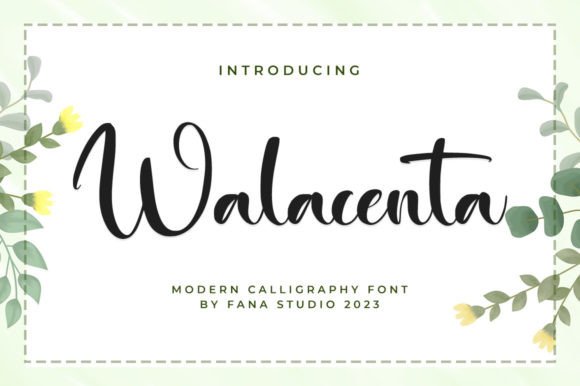
Walacenta: The Stylish Script Font for Modern Makers
There is a specific kind of magic that happens when you finally find the right Fonts to bring your handmade vision to life. I remember sitting at my design desk last Tuesday, staring at a mockup for a new line of soy candle labels. The layout was clean, the color palette was soft sage and cream, but something felt missing until I opened up Walacenta. This isn't just another digital file; it is a tool that instantly transforms flat designs into something that feels personal, elegant, and ready for the shelf. As a creator who spends hours tweaking kerning and testing cut files, finding a Script Handwritten typeface that balances modern flair with genuine readability is rare, but Introducing Walacenta Script, a stylish Font Style delivers exactly that professional touch needed for today's competitive market.
Elevating Product Packaging with Walacenta's Elegant Flow
When you are running a small shop, whether on Etsy or at a local craft fair, your packaging is your silent salesperson. I tested Walacenta immediately on a batch of boutique gift tags and product stickers, and the difference was palpable. Because this beautiful script font offers your personal touch to your latest art project with an elegant, classy, and modern look, it works exceptionally well for branding elements that need to stand out without shouting. The strokes have a natural variation that mimics real ink on paper, giving your physical products a high-end, custom feel that generic system fonts simply cannot achieve. For makers creating soap labels, jewelry cards, or bakery boxes, Walacenta adds that layer of sophistication that tells customers, "This was made with care."
The versatility of this Script Handwritten style shines when you consider how it interacts with different materials. I printed a test sheet on matte vinyl and another on textured kraft paper. On the smooth vinyl, the lines remained crisp and defined, perfect for waterproof stickers that go on water bottles or outdoor signs. On the kraft paper, the font's organic curves complemented the rough texture, creating a rustic-chic aesthetic popular in farmhouse decor. When selecting Fonts for physical merchandise, you need a typeface that doesn't lose its character when scaled down or printed on non-white backgrounds, and Walacenta maintains its integrity beautifully across these varied applications.
Creating Stunning Wedding Invitations and Stationery Sets
If you design wedding stationery or sell printable invitations, you know that couples are looking for a romantic yet contemporary vibe. Walacenta fits perfectly into this niche because it avoids the overly swirly, hard-to-read traps of traditional calligraphy while retaining enough flourish to feel celebratory. I used it to create a mockup for a wedding welcome board, pairing the large display text with a simple, clean sans serif font for the details. This combination is a classic design rule for a reason: the contrast allows Walacenta to be the star while ensuring guests can actually read the time and location. The font's modern look makes it suitable not just for weddings, but also for bridal shower invites, baby announcement cards, and even sophisticated birthday party banners.
One of the most critical aspects of using a decorative font for stationery is legibility at various sizes. During my review, I tested Walacenta at 12 points for body text and found that while it is gorgeous, it truly shines as a display font for names, titles, and short phrases. For longer paragraphs of text, such as the story of the couple or detailed directions, it is best to pair it with a neutral serif or sans serif partner. This approach ensures your designs remain accessible and easy to digest. By using Walacenta for the headlines and a supportive font for the details, you create a visual hierarchy that guides the eye naturally, making your stationery sets look professionally typeset rather than amateurishly decorated.
Optimizing Walacenta for Digital Downloads and Printables
The world of digital products is vast, ranging from planner pages to wall art, and choosing the right typography can make or break a listing image. Introducing Walacenta Script, a stylish Font Style is particularly effective for cover pages of digital planners or inspirational quote prints. The "personal touch" mentioned in its description translates wonderfully to the screen, where users are often looking for warmth and humanity in their digital organization tools. I created a set of monthly calendar headers using Walacenta, and the result was a cohesive, inviting aesthetic that encourages users to engage with their planning process. For sellers of SVG files or sublimation designs, this font provides excellent source material for t-shirts, tote bags, and mugs where a handwritten feel is desired.
However, practical application requires attention to technical details. If you are creating cut files for Cricut or Silhouette machines, Walacenta generally handles well, but always check the connecting points between letters to ensure they are welded correctly before cutting intricate materials like cardstock or heat transfer vinyl. For very small applications, such as tiny favor tags or miniature stickers, you may need to adjust the tracking slightly to prevent the letters from merging into an illegible blob. Remember, while Fonts like this add immense value, they work best when used intentionally. Avoid using them for dense blocks of text or technical instructions where clarity is paramount. Instead, reserve Walacenta for the moments that need emotion, style, and a distinct brand voice.
Building a Consistent Brand Identity with Modern Typography
Ultimately, the goal of any creative business is to build a brand that people recognize and trust. Consistency in your visual assets, from your social media graphics to your shop banner, is key to achieving this. Walacenta serves as a strong anchor for a brand identity that wants to appear approachable yet premium. Because it is a Script Handwritten font with a modern edge, it appeals to a wide demographic, from young entrepreneurs to established artisans. When I updated my own shop's logo concepts using Walacenta, I noticed how quickly it unified my disparate product photos into a cohesive collection. It acts as a visual thread that ties together different product lines, whether you are selling seasonal holiday ornaments or year-round home decor.